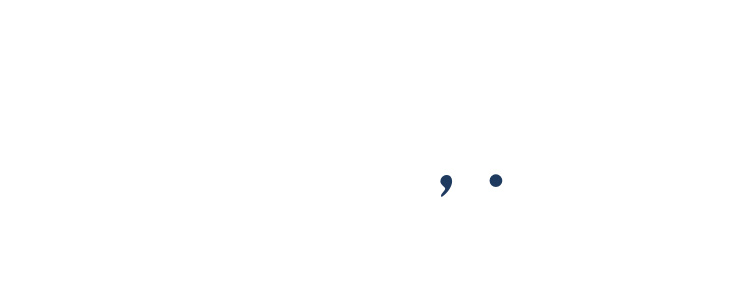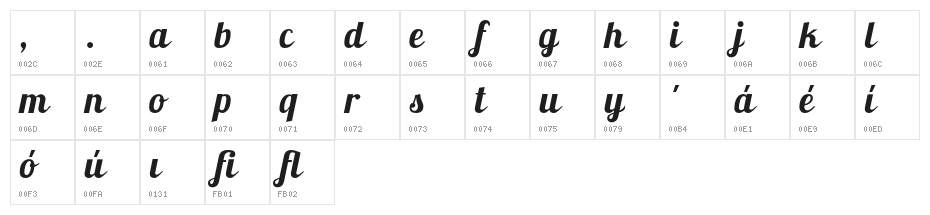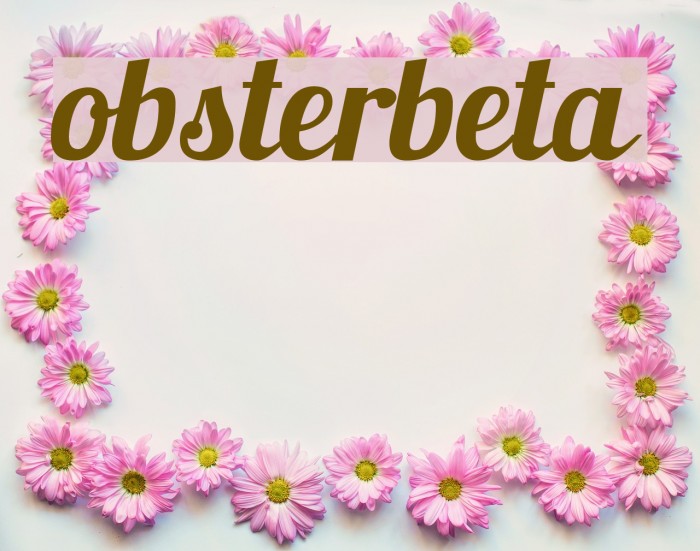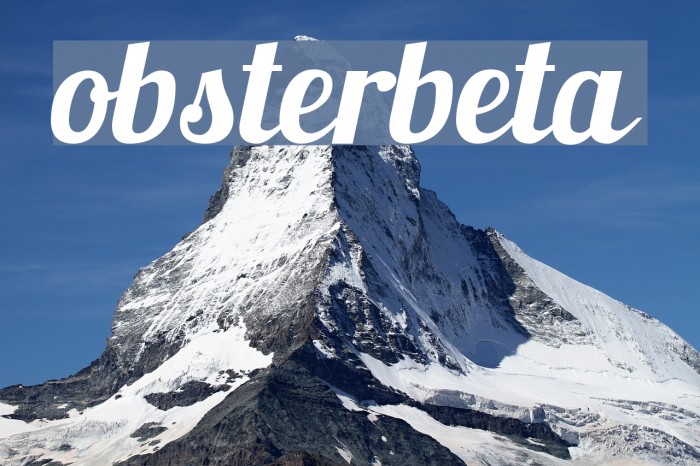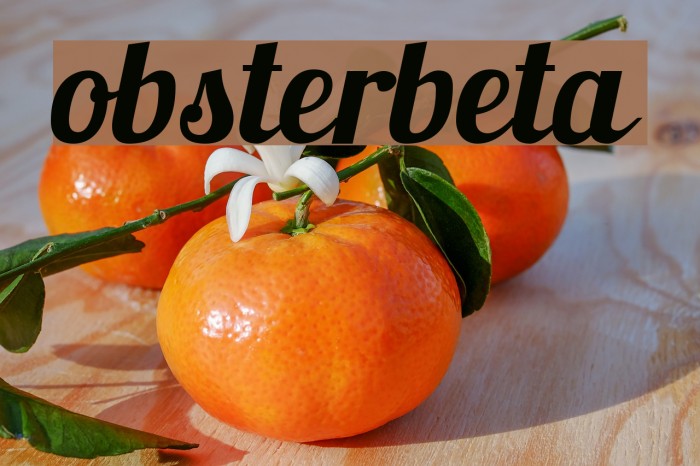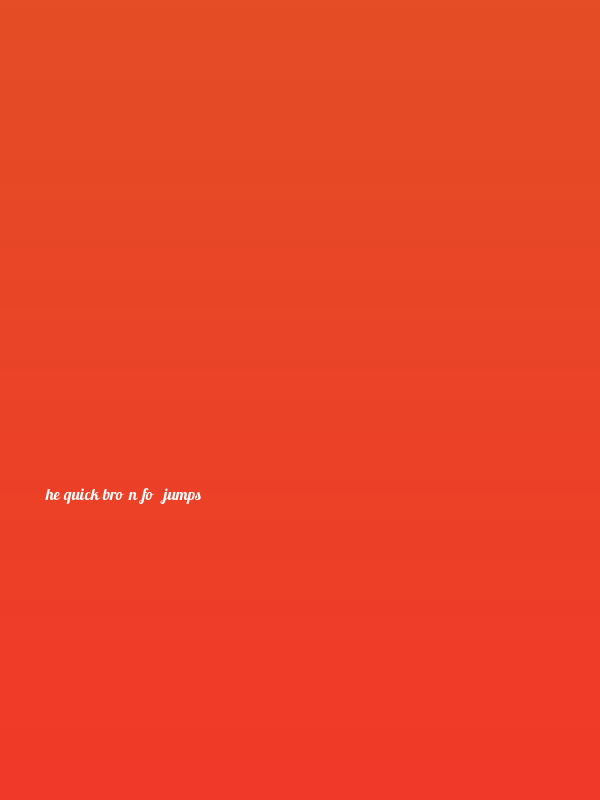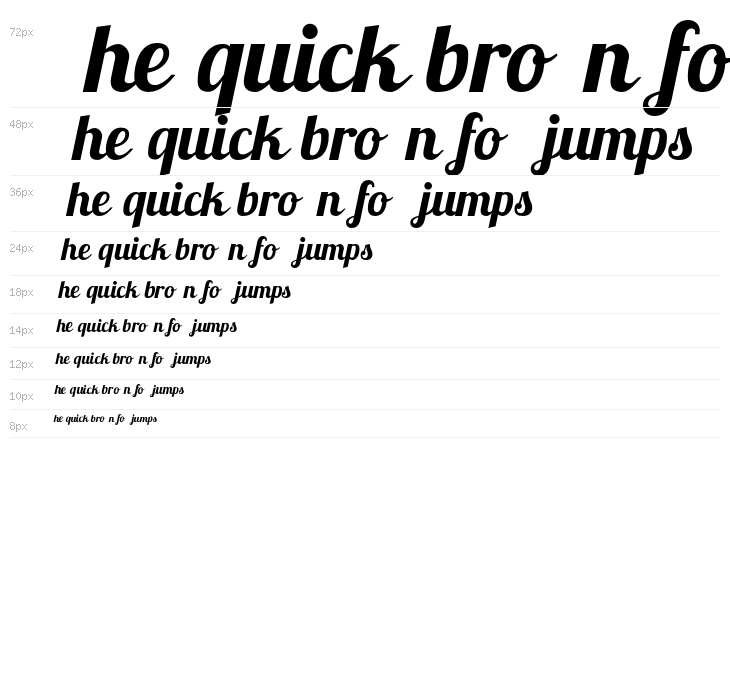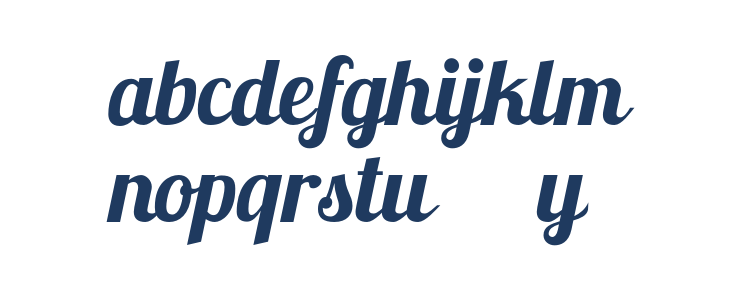
Lobsterbeta4 Font
Lobsterbeta4 Description
This font exhibits a bold and flowing script style, characterized by its elegant curves and smooth connections between letters. The design is reminiscent of classic calligraphy, with a modern twist that adds a touch of sophistication. The letters are slightly slanted, enhancing the dynamic and fluid appearance. The strokes are thick and consistent, providing a strong visual impact while maintaining readability. This font is ideal for creating a sense of elegance and style, making it perfect for branding, invitations, and decorative purposes. The overall look is both timeless and contemporary, appealing to a wide range of design aesthetics.
Use CaseLogos, Invitations, Decorative text
Proposed ProjectsIdeal for wedding invitations, branding, logos, and decorative designs.